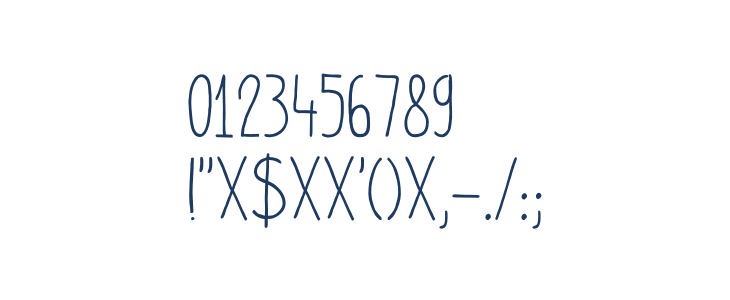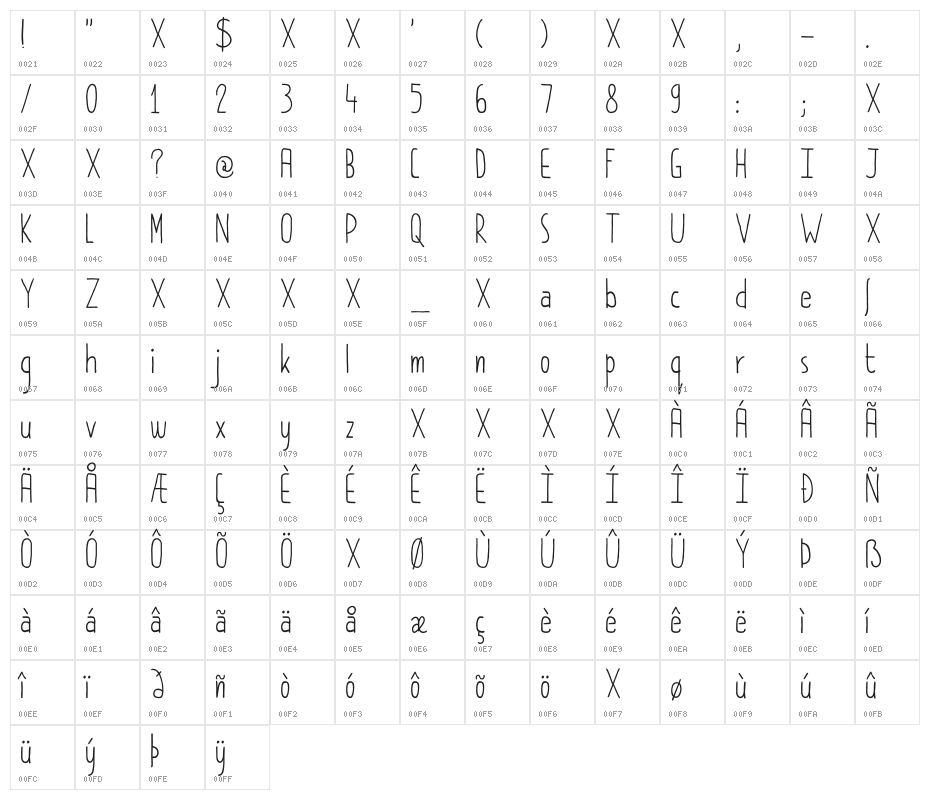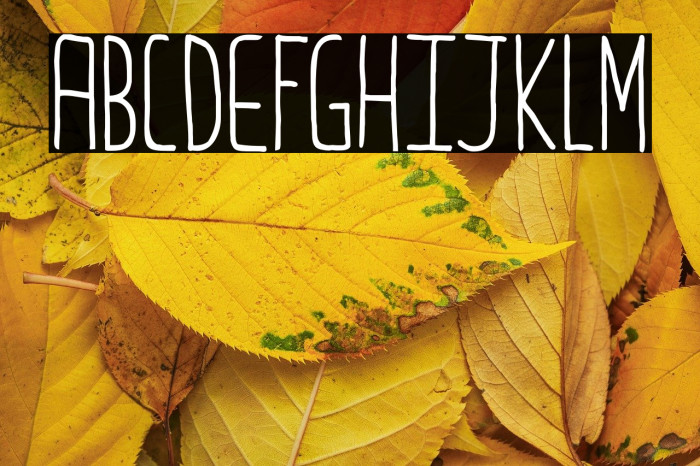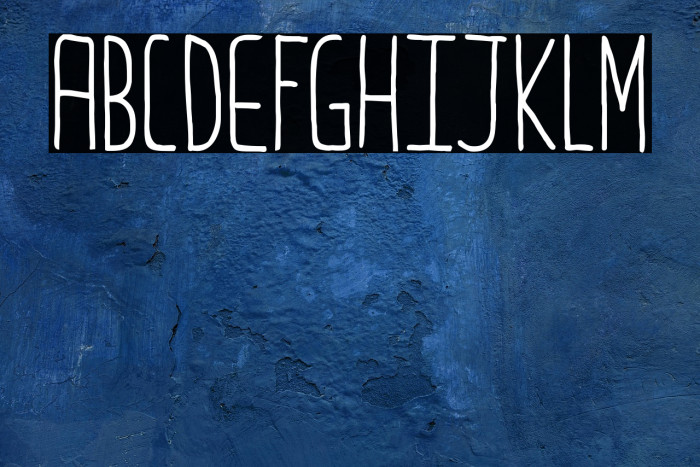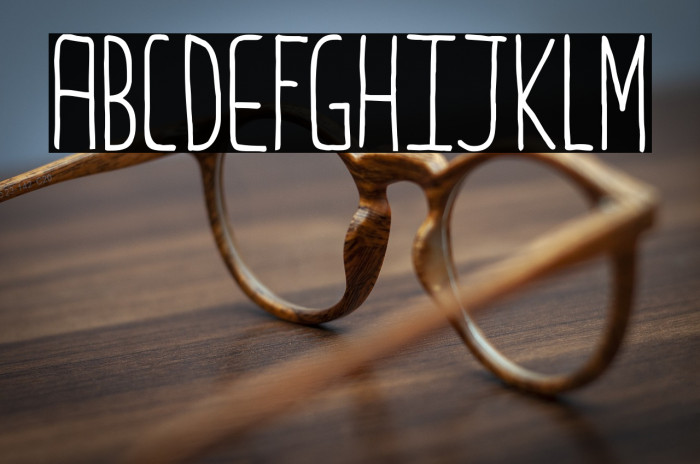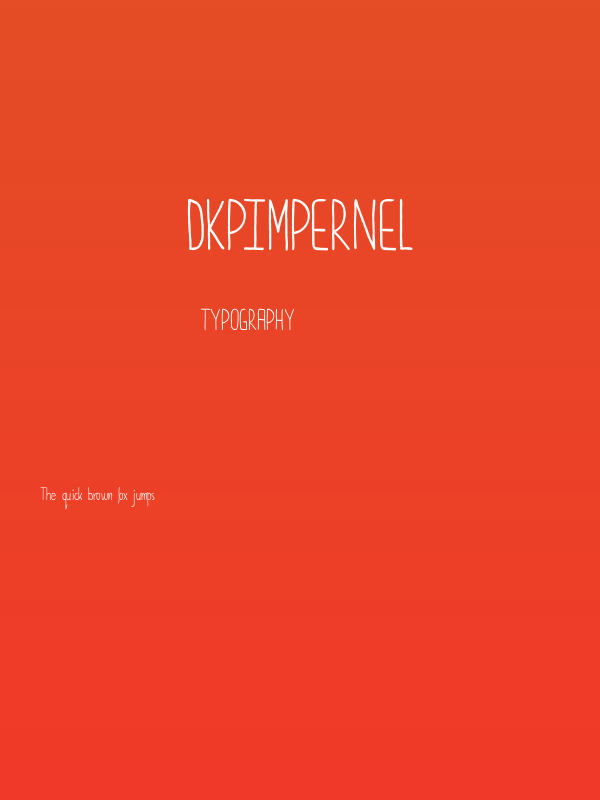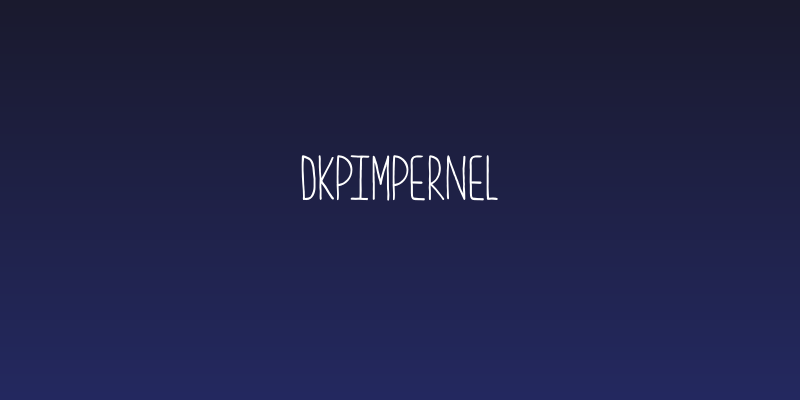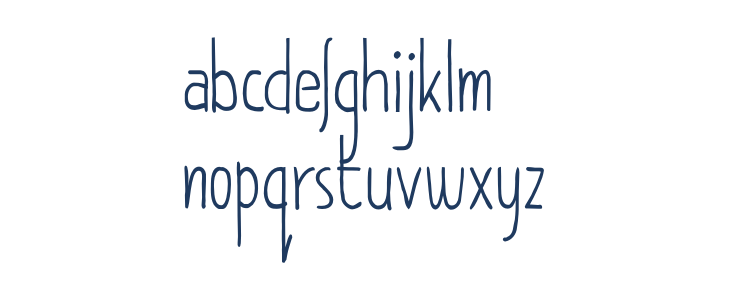
DKPimpernel Font
DKPimpernel Description
This font features a playful and whimsical handwritten style with tall, narrow characters. The strokes are uneven, adding a casual and informal touch. The uppercase letters are slightly taller than the lowercase, maintaining a consistent width throughout. The numbers and special characters follow the same playful aesthetic, making the font suitable for creative and informal projects. The overall appearance is light and airy, with a sense of spontaneity and charm.
| Proposed Projects | Ideal for children's books, greeting cards, playful branding, and casual invitations. |